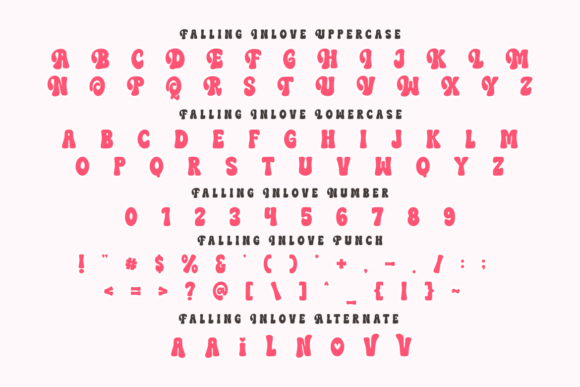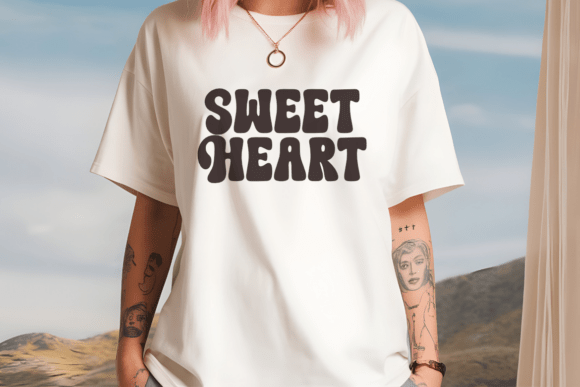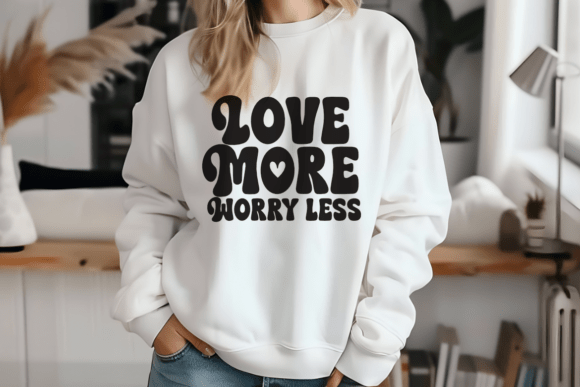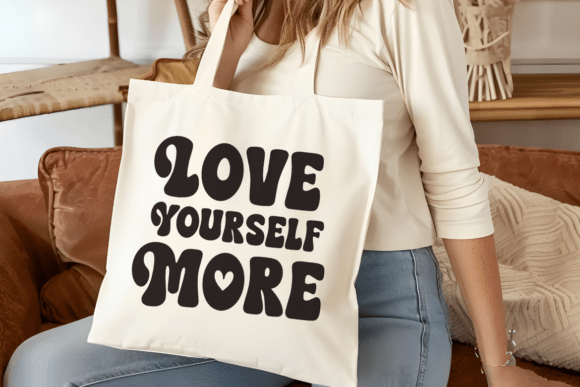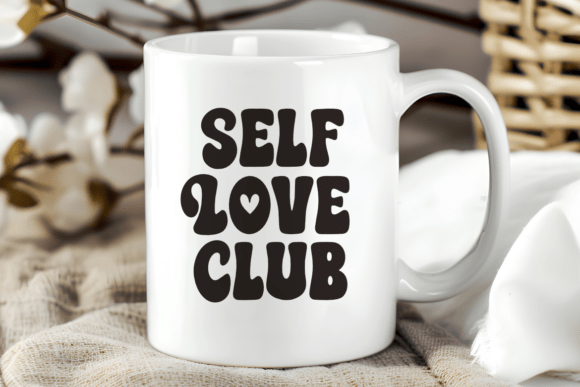
Falling Inlove Font: The Perfect Choice for Romantic Designs
Are you looking for a font that captures the whimsical feeling of new romance? Do you want to add a touch of nostalgia and playfulness to your designs? Look no further than the Falling Inlove Font, a charming and groovy display font inspired by the joyful aesthetic of the 70s and 80s.
A Font that Embodies the Spirit of Love and Romance
Falling Inlove Font is a must-have for creators targeting the Valentine’s Day, Wedding, and general Love/Romance niches in the craft, POD (Print On Demand), and DIY markets. Its smooth, rounded edges and fun, bouncy baseline make it instantly appealing and eye-catching. This font is perfect for creating romantic and playful designs that will capture the hearts of your audience.
Falling Inlove Font is versatile and can be used for a wide range of design projects, including:
- Crafting SVG designs
- Wedding invitations and engagement party decor
- Personalized anniversary gifts
- T-shirts and mug designs
- Cute stickers and greeting cards
- Romantic quotes and social media graphics
- Feminine branding and children’s apparel
Great for Holiday Themes
The playful style of Falling Inlove Font is also great for holiday themes, such as:
- Valentine’s Day
- Mother’s Day
- Anniversaries
- Any celebration of love and friendship
With Falling Inlove Font, you can instantly add a sweet, retro flair to your projects and make them stand out from the crowd.
Why Choose Falling Inlove Font?
Here are just a few reasons why Falling Inlove Font is a great choice for designers and crafters:
- Unique and eye-catching design: The smooth, rounded edges and fun, bouncy baseline of Falling Inlove Font make it a standout font that will grab attention.
- Perfect for romantic designs: Whether you’re creating designs for Valentine’s Day, weddings, or just want to add a touch of romance to your projects, Falling Inlove Font is the perfect choice.
- Versatile: This font can be used for a wide range of design projects, from crafting and DIY to social media graphics and branding.
Tips for Using Falling Inlove Font
Here are a few tips for getting the most out of Falling Inlove Font:
- Pair it with complementary fonts: Try pairing Falling Inlove Font with other fonts that complement its playful and romantic style.
- Experiment with colors: Don’t be afraid to try out different colors and color combinations to find the perfect look for your design.
- Use it for headlines and titles: Falling Inlove Font is perfect for headlines and titles, where its playful and eye-catching design can really shine.
If you’re looking for a font that captures the whimsical feeling of new romance and adds a touch of nostalgia and playfulness to your designs, look no further than Falling Inlove Font. With its smooth, rounded edges and fun, bouncy baseline, this font is perfect for a wide range of design projects, from romantic designs to holiday themes. So why wait? Download Falling Inlove Font today and start creating designs that will capture the hearts of your audience!